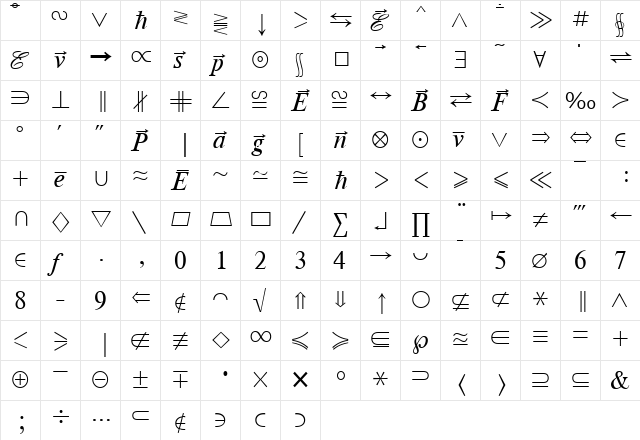
MathematicaBTT Regular Font Preview
MathematicaBTT Regular
MathematicaBTT Regular Font Details
Design Context for MathematicaBTT Typeface
MathematicaBTT takes a measured approach to typography — its balanced proportions and neutral character make it a reliable workhorse for both digital and print work.